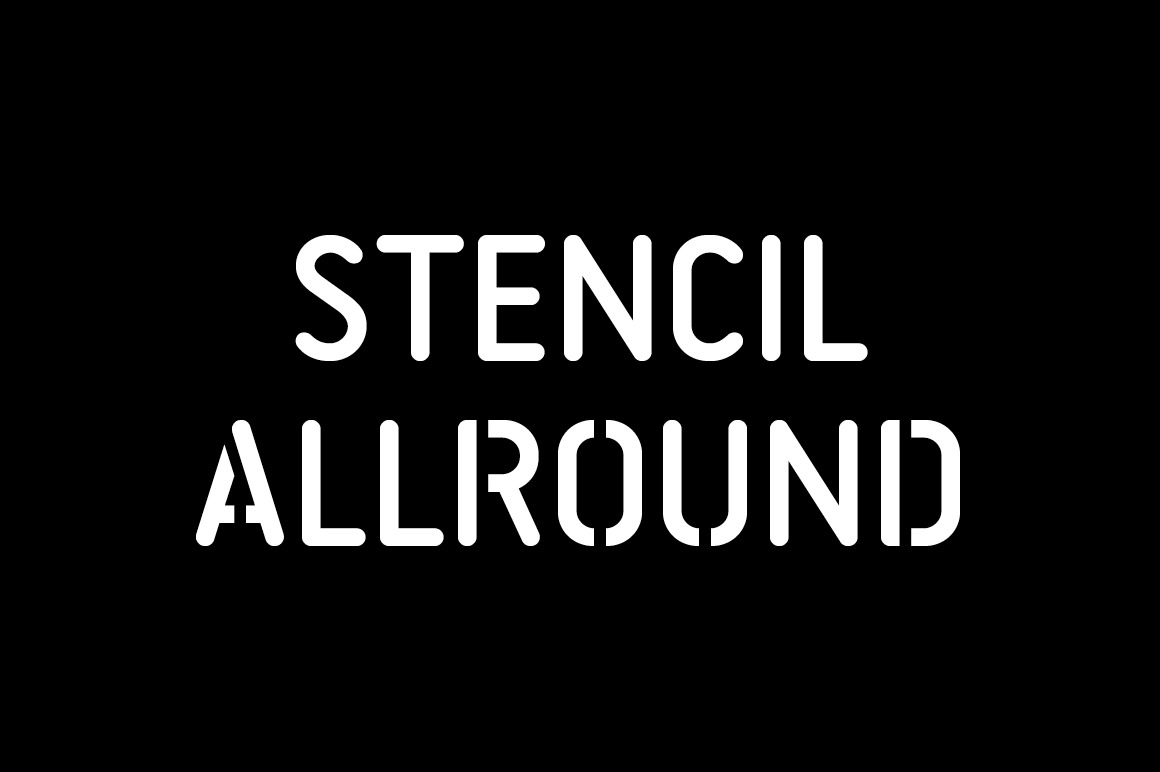
Stencil Allround Typeface
Stencil Allround is a rounded capital letter font made for display use. For more information check the PDF: http://letterwerk.ch/wp-content/uploads/2012/04/StencilAllround.pdf